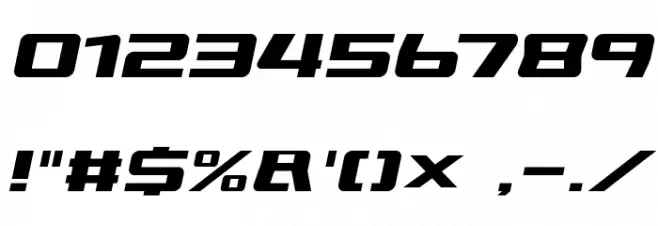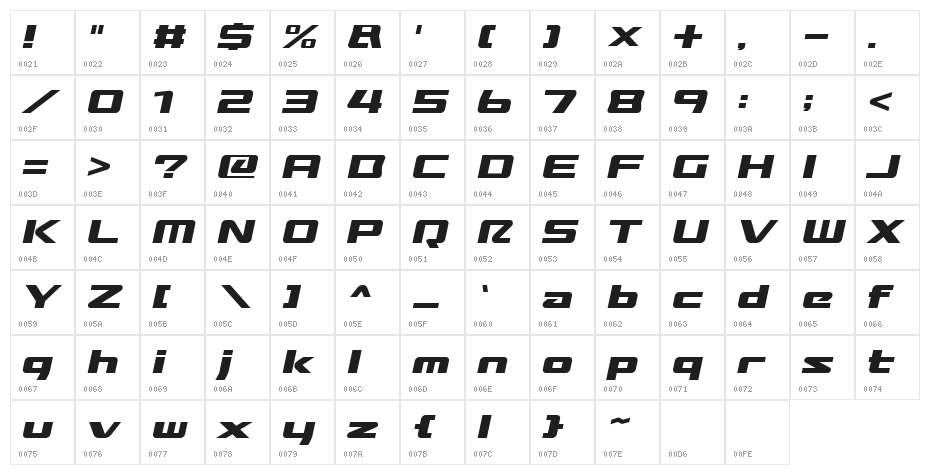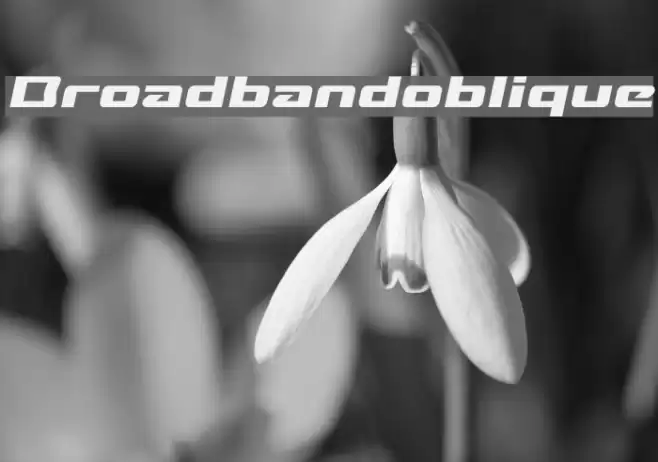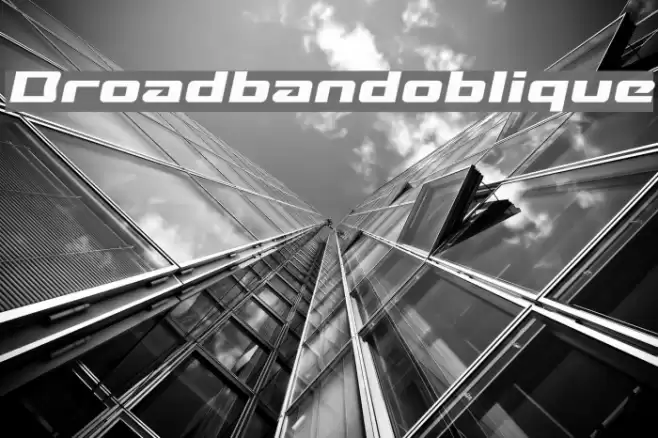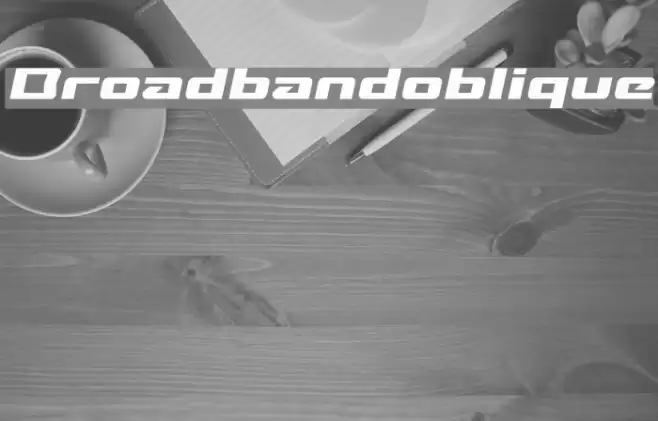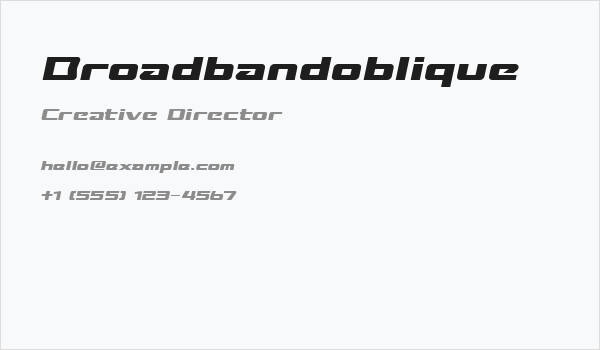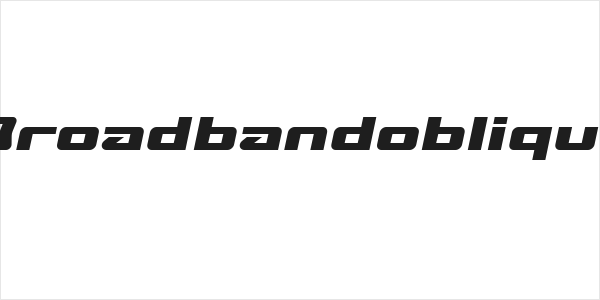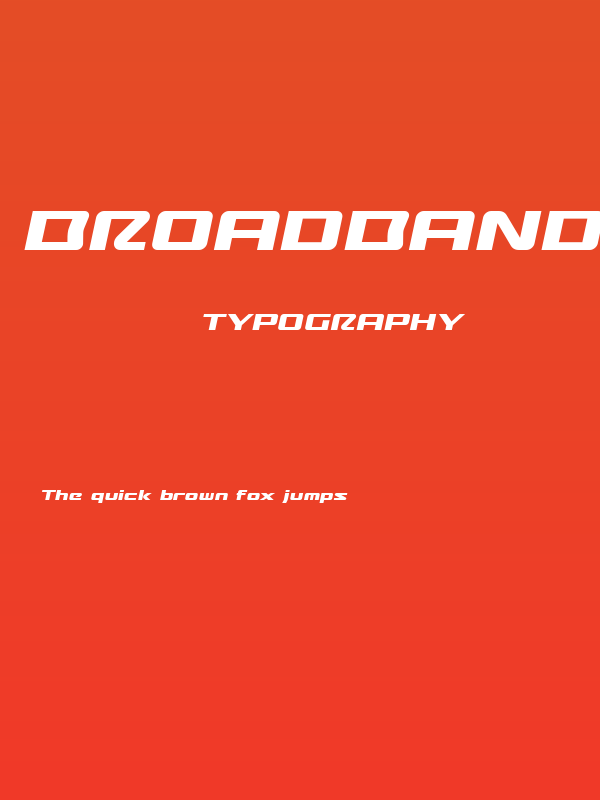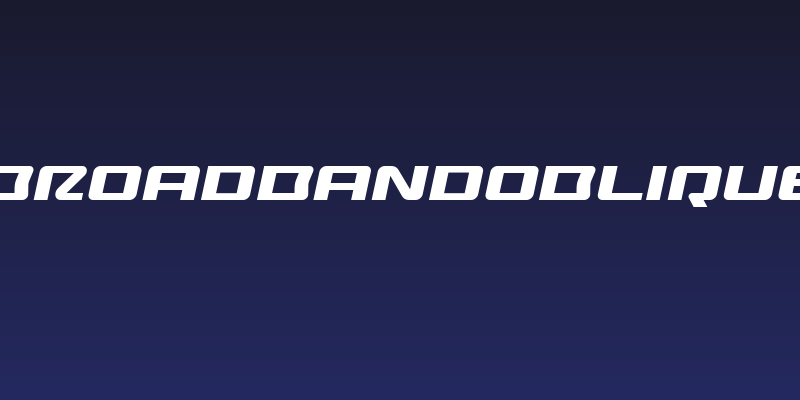
Broadbandoblique Font
Broadbandoblique Description
This font features a bold, oblique style with a futuristic and dynamic appearance. The characters are sharply angled, giving a sense of motion and speed. The uppercase letters are particularly striking, with a consistent slant that adds to the overall sleekness. Lowercase letters maintain the same angular design, ensuring uniformity across the typeface. Numbers and special characters follow the same aesthetic, making the font versatile for various applications. The design is clean and modern, suitable for projects that require a strong visual impact.
| Proposed Projects | Ideal for sports branding, technology logos, video game titles, and dynamic advertising. |